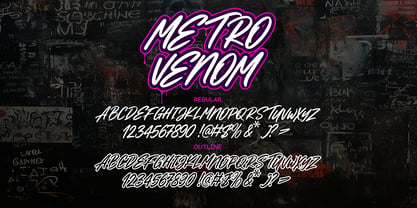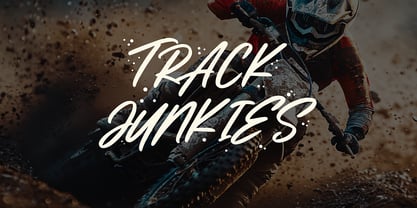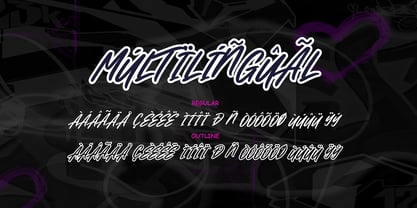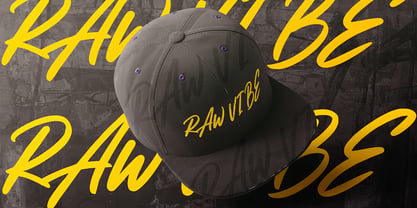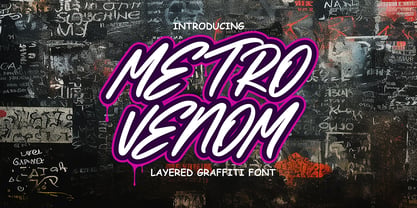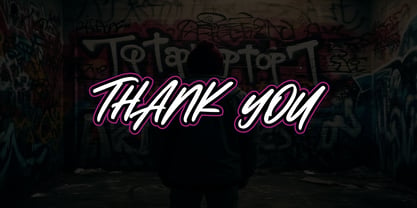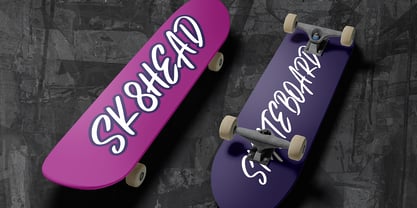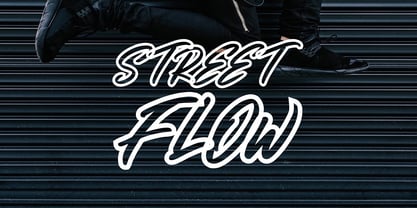
Metro Venom
The Metro Venom Font Family was designed by Sipanji and published by Sipanji21. Metro Venom contains 2 styles and family package options. More about this family
Metro Venom is an outlined graffiti brush typeface that blends raw street expression with a bold contemporary design approach. Created for designers who want strong visual identity and fearless personality in their typography, Metro Venom captures the unmistakable energy of hand-brushed graffiti outlines — fast strokes, sharp edges, irregular pressure, and expressive movement. The result is a typeface that feels intense, dynamic, and alive, ready to dominate any layout with confidence. Inspired by the visual chaos of street tagging, brush lettering, and urban murals, Metro Venom carries a level of authenticity that is rarely found in digitally produced graffiti fonts. The outlined form adds dimensional contrast, allowing the font to stand out even more while giving every character a strong sense of structure. This combination of brush texture and open outline makes Metro Venom both aggressive and stylish, giving it a unique identity within the graffiti and street typography category. Every letter is designed to feel hand-drawn — slightly imperfect, expressive, and full of character. Instead of clean uniformity, Metro Venom embraces the natural flow of brush strokes with subtle variations in width and pressure, making the font feel vibrant and unpredictable. This precise “designed chaos” is what brings Metro Venom to life and makes it a powerful display tool for designers seeking boldness and authenticity. Metro Venom comes with Uppercase letters, numbers, punctuation, and multilingual support, ensuring flexibility across various design scenarios. The inclusion of stylistic alternates allows you to experiment with different forms of the letters, letting you push the graffiti vibe even further. These alternate shapes help create lettering that feels custom-made, enabling designers to build more expressive titles, logos, and compositions without needing to draw manually. Perfect for High-Impact Creative Projects Metro Venom is ideal for projects that rely on strong visual identity and energetic direction. From streetwear branding, music promotional materials, and album covers to sports graphics, event posters, graffiti-inspired merchandise, social media layouts, and digital artwork, the font elevates every composition with its loud, rebellious personality. The bold outline structure ensures that Metro Venom remains readable even when used in busy compositions or layered designs. Its wide strokes create presence, while the outlined style adds depth without overwhelming the design. This balance between intensity and clarity is what makes Metro Venom suitable for both modern and retro street-themed environments. Designers can use it for visual storytelling, youth-culture branding, or energetic campaigns that demand fonts with attitude and authenticity. Why Designers Choose Metro Venom stands apart because it merges genuine graffiti texture with a clean outline that enhances legibility. It’s expressive yet controlled, chaotic yet structured — a duality that gives it broad creative potential. Designers love its ability to transform simple text into a striking visual element that becomes the centerpiece of the composition. Its handmade brush personality gives every design a sense of movement and emotion, making it perfect for brands and artists who want a bold and confident visual identity. Metro Venom is not just a font; it’s a visual statement that carries the spirit of urban culture, rebellion, and creativity. With its energetic rhythm, outlined brush strokes, and authentic graffiti construction, Metro Venom delivers a powerful storytelling tool for designers around the world. Whether you’re crafting edgy apparel graphics or bold promotional artwork, Metro Venom brings the strength, style, and vibrancy that modern street design demands.